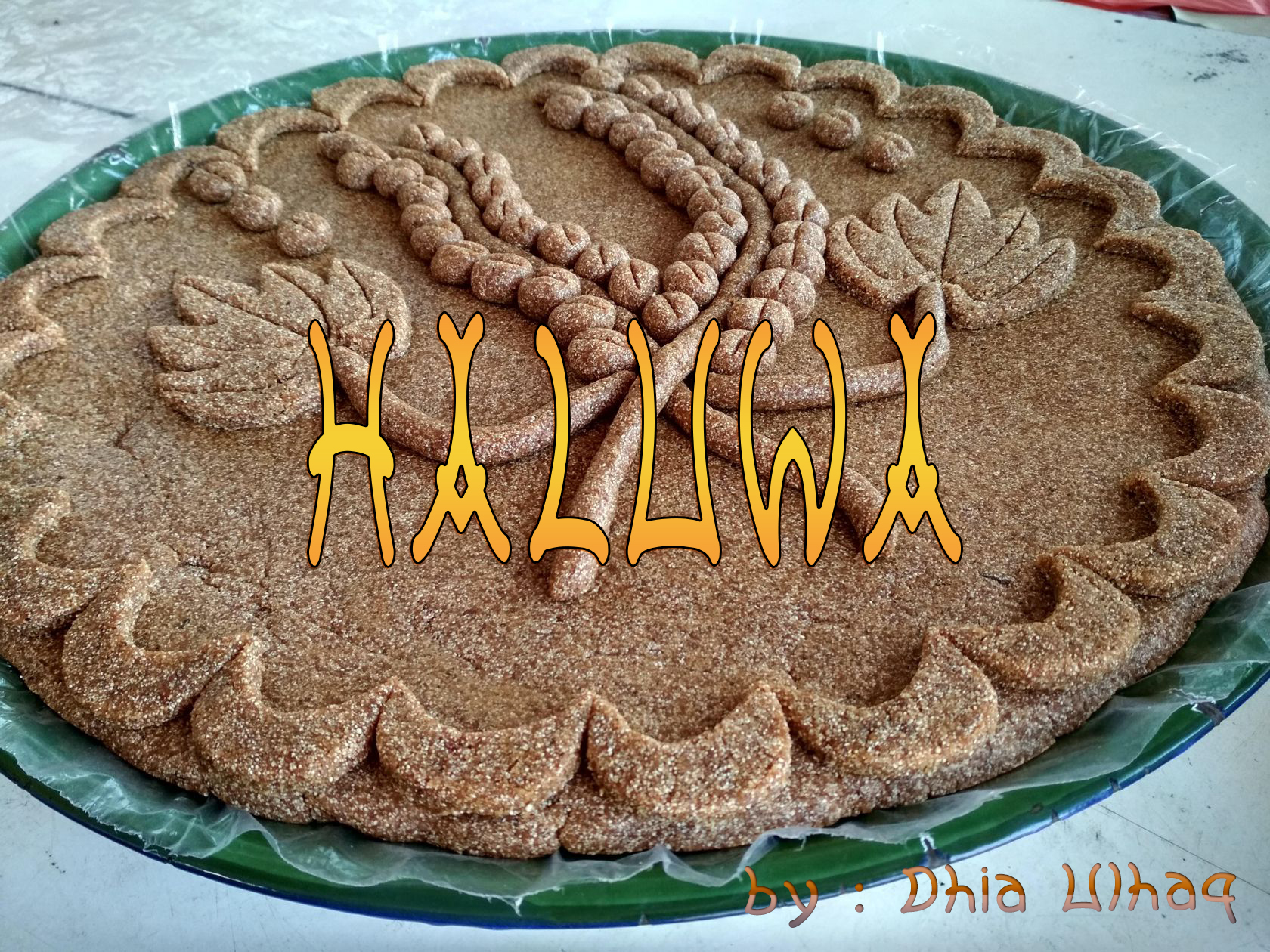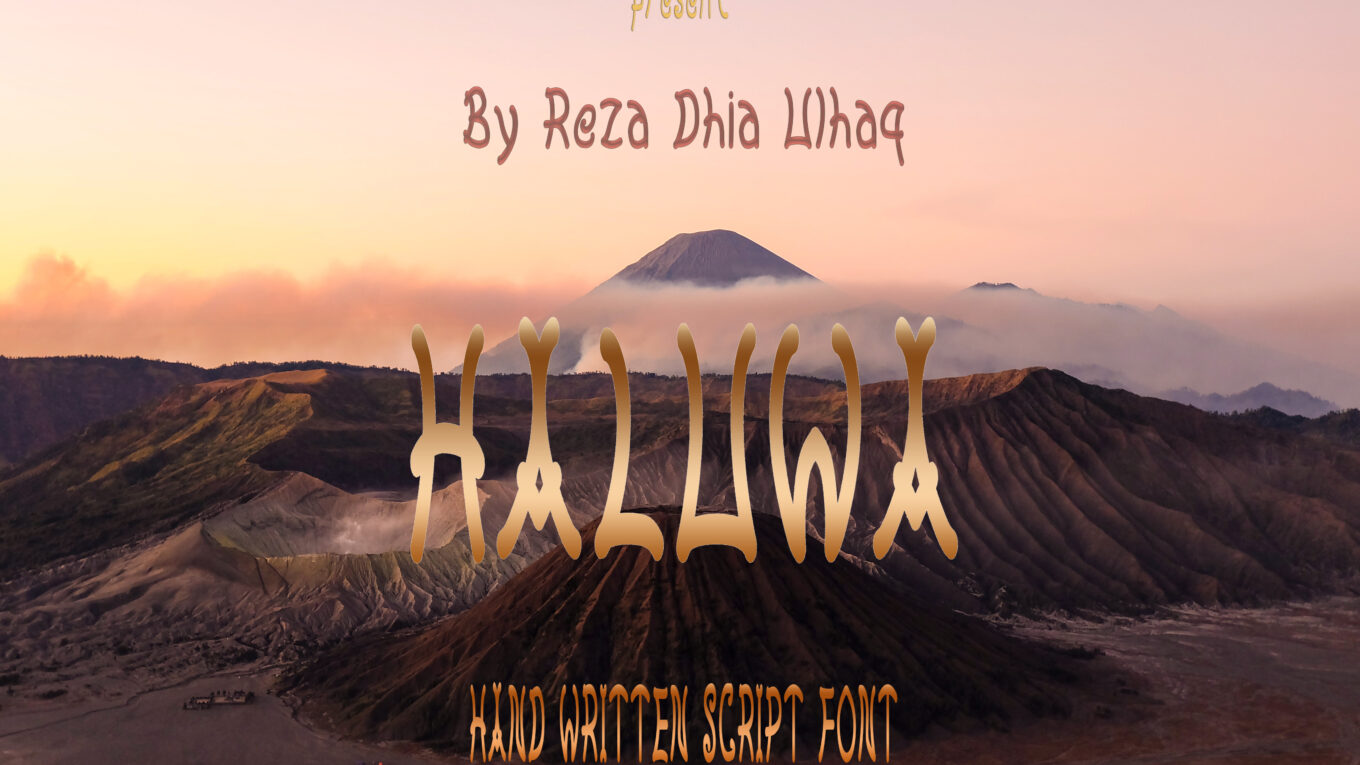
Haluwa Font: Adding a Touch of Whimsy to Your Designs
In the world of typography, fonts play a crucial role in conveying the tone and personality of a design. If you’re looking for a font that exudes playfulness and lightheartedness, look no further than Haluwa Font. This fun handwritten font is ideal for designers and crafters who want to add a touch of whimsy to their projects.
What is Haluwa Font?
Haluwa Font is a modern handwritten font that is designed to bring a sense of joy and cheer to your designs. With its flowing lines and carefree feel, this font is perfect for creating playful and relaxed designs that appeal to a wide range of audiences. Whether you’re working on a project for a children’s brand, a lifestyle blog, or a creative craft, Haluwa Font is sure to add a touch of personality to your work.
Key Features of Haluwa Font
• Handwritten style: Haluwa Font features a handwritten style that is both personal and approachable.
• Playful and relaxed: This font is designed to convey a sense of playfulness and relaxation, making it perfect for designs that require a lighthearted touch.
• Cheery and upbeat: Haluwa Font has a cheery and upbeat feel that is sure to add a smile to your audience’s faces.
• Versatile: This font is versatile and can be used for a wide range of projects, from digital designs to print materials.
Uses of Haluwa Font
Haluwa Font is a versatile font that can be used for a variety of projects, including:
• Branding and logos: Use Haluwa Font to create a playful and memorable brand identity.
• Digital designs: This font is perfect for digital designs, such as social media graphics, blog posts, and email newsletters.
• Print materials: Haluwa Font can be used for print materials, such as brochures, flyers, and posters.
• Crafting and DIY projects: This font is ideal for crafters and DIY enthusiasts who want to add a personal touch to their projects.
Tips for Using Haluwa Font
Here are some tips for using Haluwa Font effectively in your designs:
• Use it sparingly: While Haluwa Font is playful and fun, it can be overwhelming if used excessively. Use it sparingly to add a touch of whimsy to your designs.
• Pair it with other fonts: Haluwa Font pairs well with other fonts, such as sans-serif fonts. Experiment with different font combinations to create a unique look.
• Adjust the size and color: Adjust the size and color of Haluwa Font to create visual interest and hierarchy in your designs.
Haluwa Font is a fun and playful handwritten font that is ideal for designers and crafters who want to add a touch of whimsy to their projects. With its cheery and upbeat feel, this font is sure to bring a smile to your audience’s faces. Whether you’re working on a branding project, digital design, or crafting project, Haluwa Font is a great choice. So why not give it a try and see how it can add a touch of personality to your designs?
Overall, Haluwa Font is a great addition to any designer’s or crafter’s toolkit. Its playful and whimsical feel makes it perfect for a wide range of projects, from branding and digital designs to crafting and DIY projects. So why not give it a try and see how it can add a touch of personality to your designs?